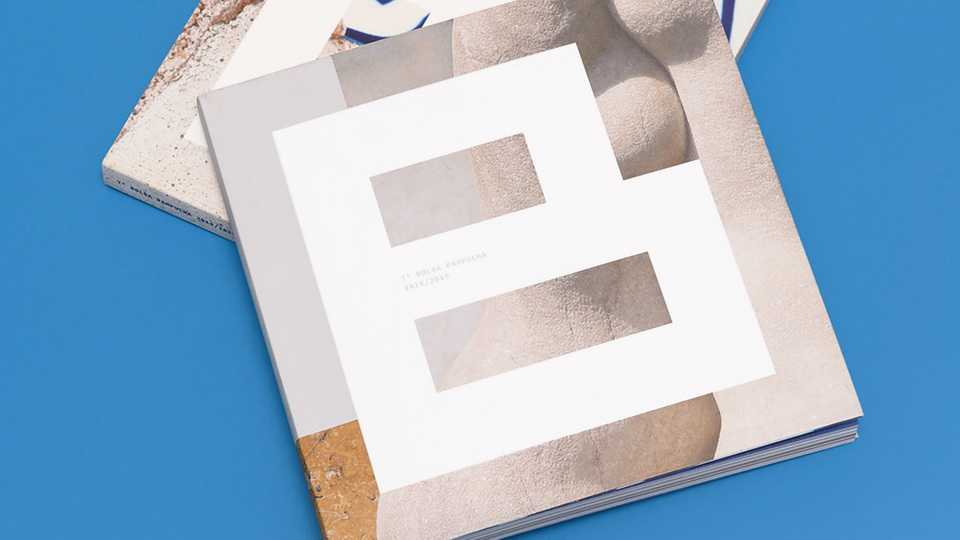
Download The MAP fonts, a display typeface developed for the visual identity of the 7th edition of the Bolsa Pampulha program One key element to said system was the MAP font, based on the lettering on the museum’s façade, and developed exclusively for the project.
Designer: Gabriel Figueiredo